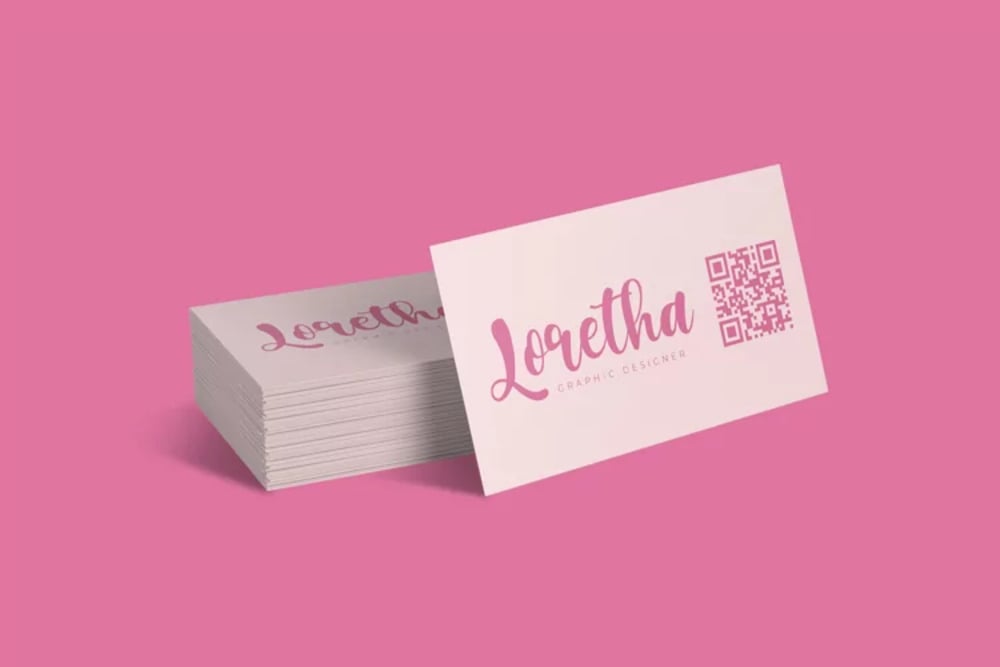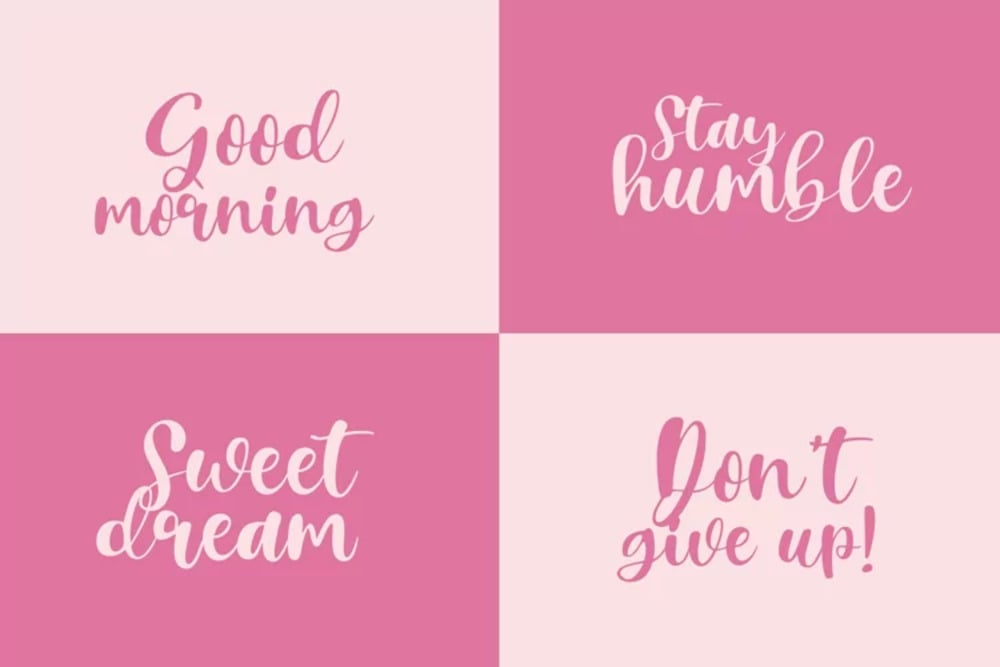
Mother Happy font
Mother Happy is a delightful handwritten font exuding warmth and affection. Its slightly imperfect, yet charming letterforms create a friendly and approachable feel. Perfect for crafting heartfelt messages, Mother’s Day cards, scrapbooking projects, or anything that needs a touch of tender loving care. This font evokes a sense of home and comfort, making it ideal for projects celebrating family and love.